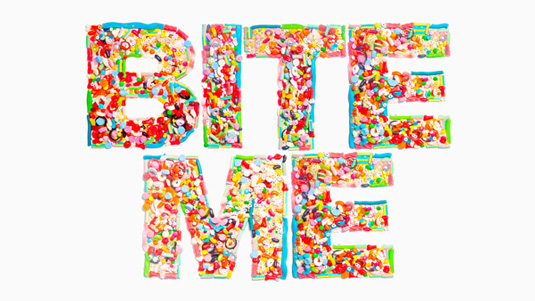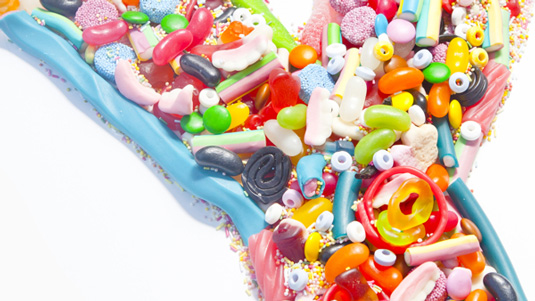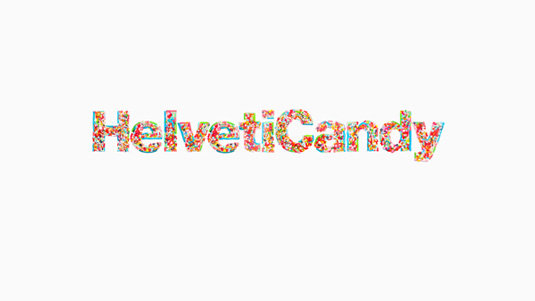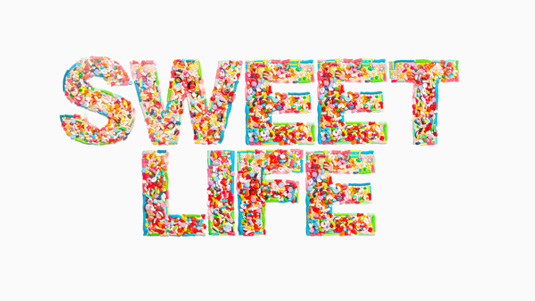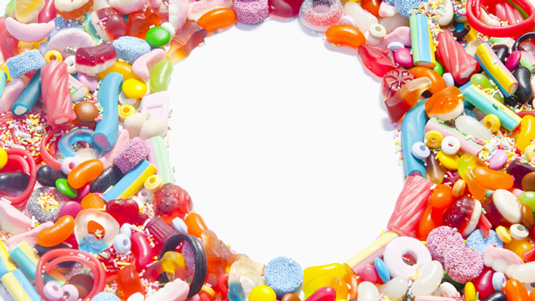
Free typeface HelvetiCandy hits sweet spot
Designer Samuel Mensah develops delicious Helvetica typeface with a sweet twist. And it's yours for the price of a tweet!
One of the most popular fonts around, Helvetica has recently undergone a delicious new makeover in this mouth-watering project by graphic designer Samuel Carter Mensah.
By carefully placing over 200 pieces of candy (not including sprinkles), Mensah managed to totally recreate the sans serif typeface. "This typeface is a venture to bring the the normally unseen colorful childlike and lively essence of the Helvetica typeface," he explains. "Enjoy!"